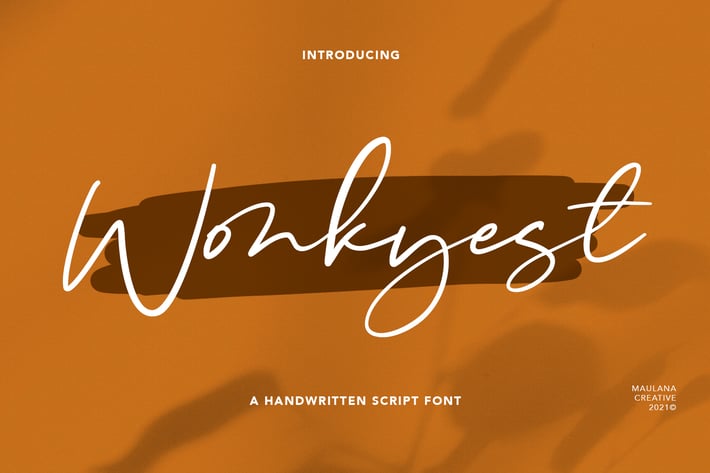
Wonkyest Handwritten Script Font
Wonkyest is a handwritten script font, quirk and fun characters. It has Opentype features of ligatures and some lowercase alternate, makes it a perfect choice for branding and digital designs. Use this font for logos, social media, websites, blogs, instagram, social media, business cards, branding, and more! Wonkyest font support multilingual more than 100+ language. and good pair for your secondary text font with sans or serif. Make a stunning work with Wonkyest script font.